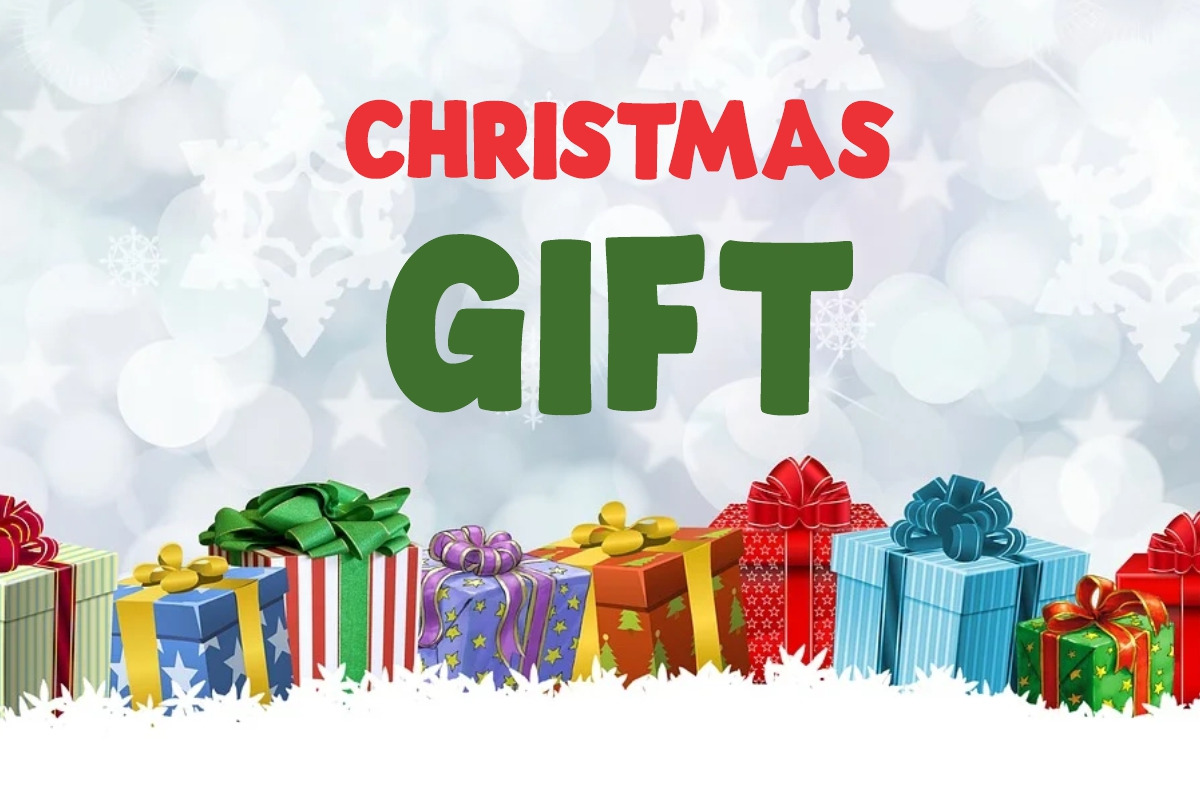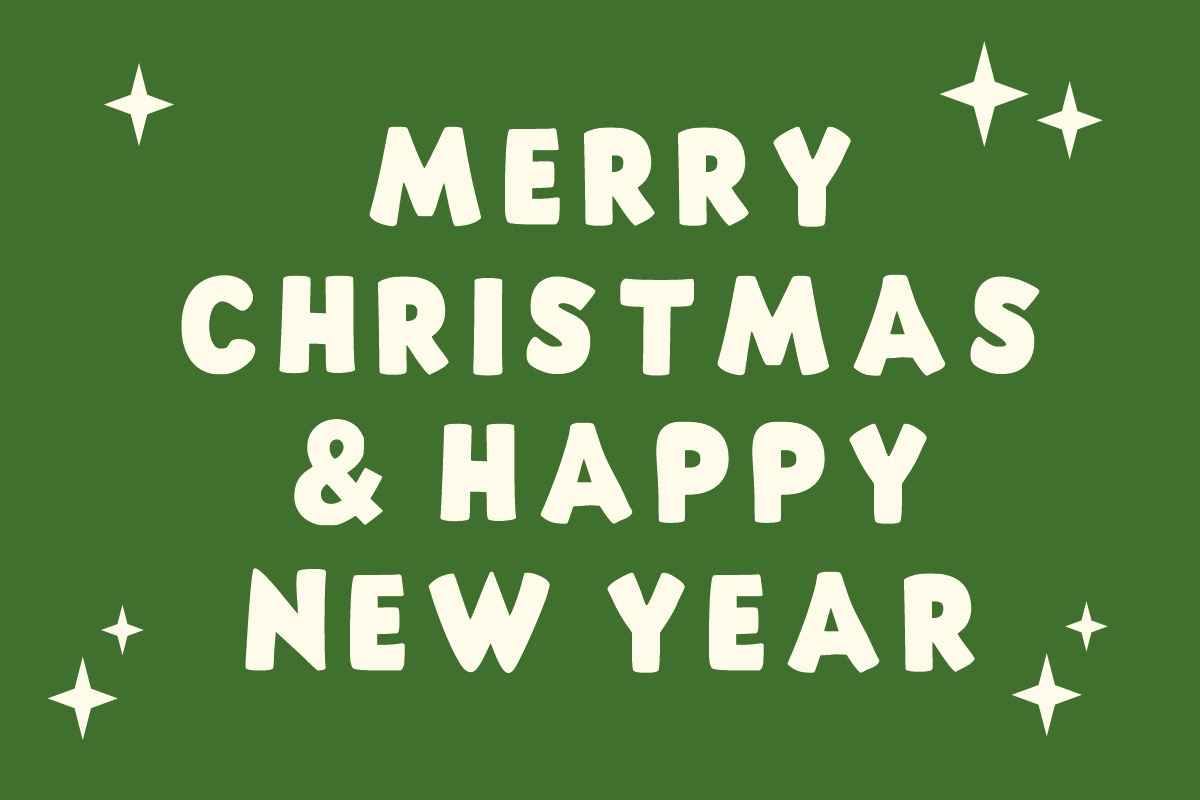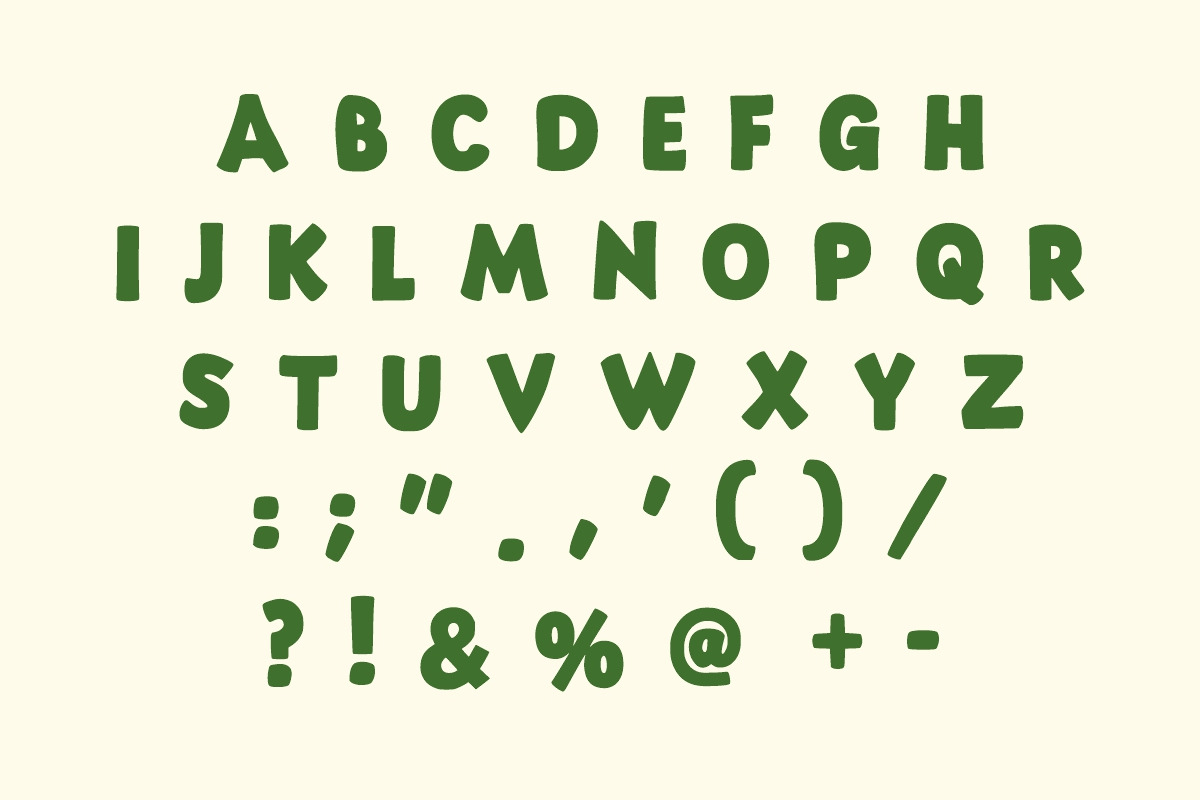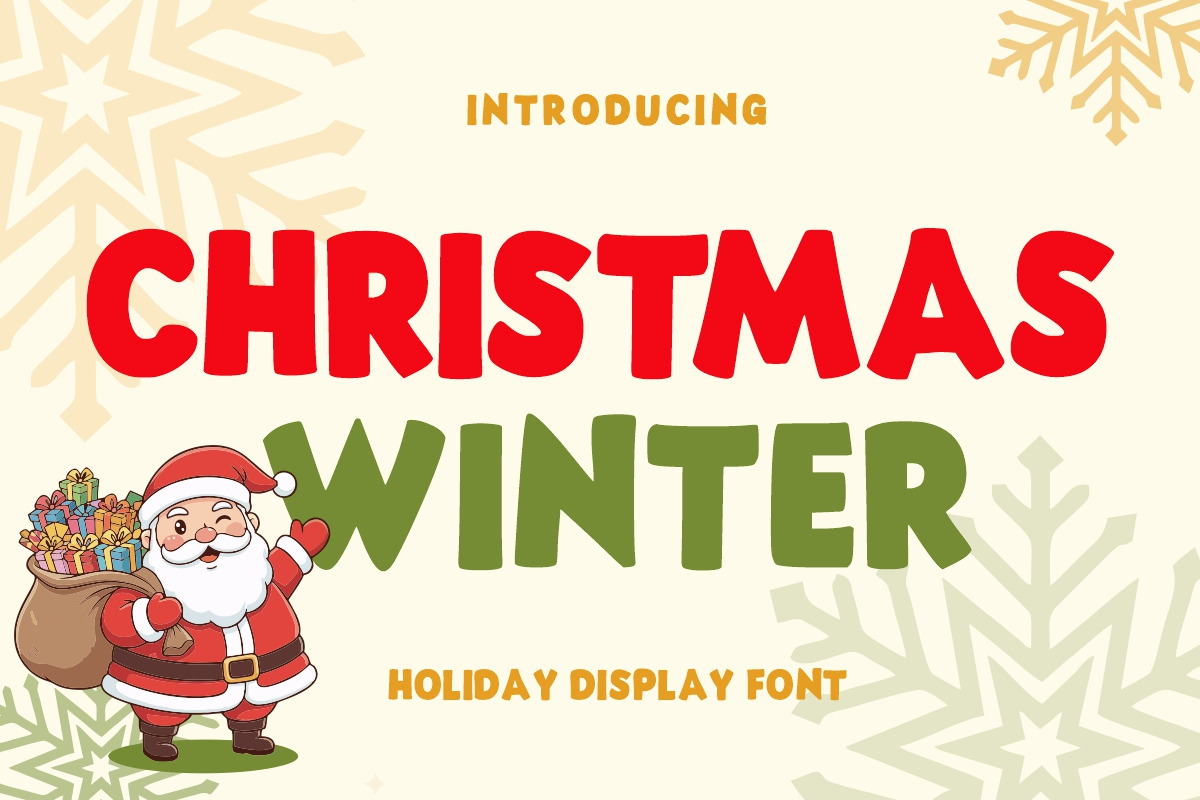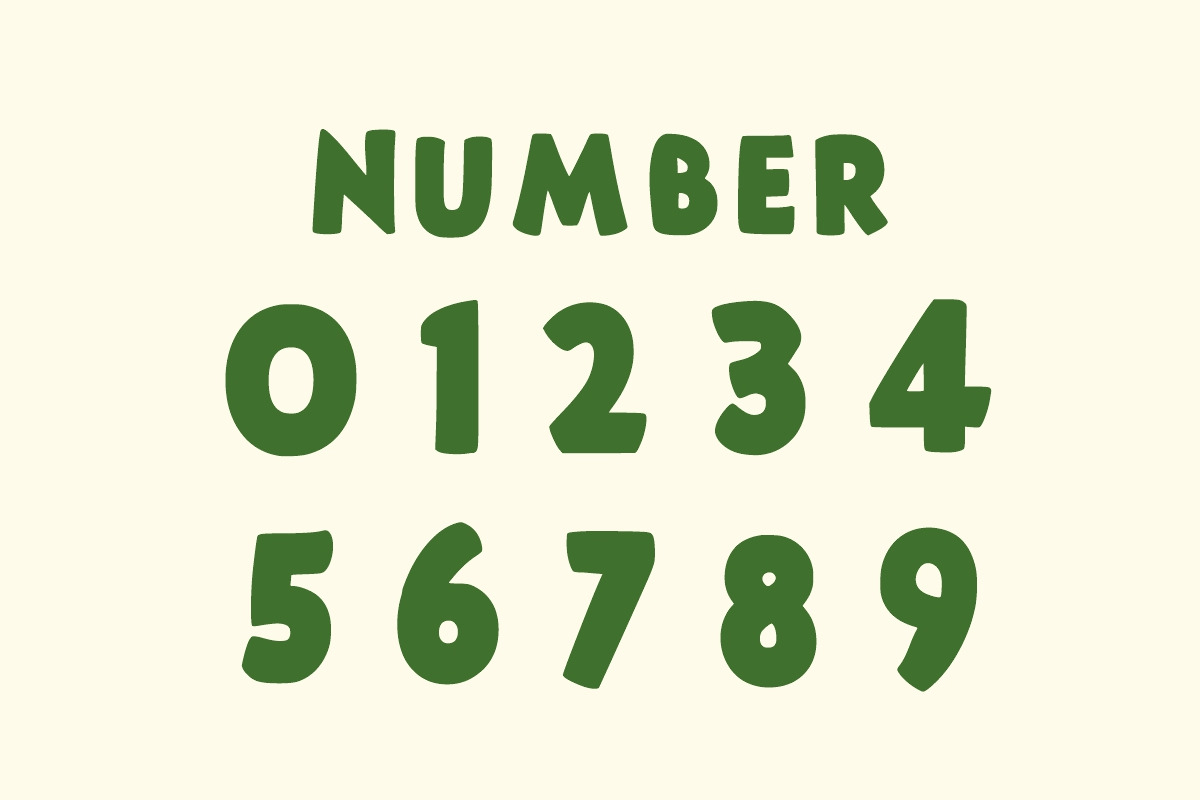
Christmas Winter Font
Christmas Winter font is a wonderfully cheerful and robust holiday display typeface, delivering a friendly, chunky aesthetic perfect for conveying warmth and seasonal simplicity.
This simple, bold, sans-serif font features rounded edges and a heavy weight, making it incredibly clear and readable, even when used on busy backgrounds. Its straightforward, joyful structure makes the Christmas Winter font highly versatile for family-friendly seasonal designs. Utilize this easy-to-use Holiday Display font for creating Santa Claus letters, large-scale store signage for winter sales, simple gift packaging labels, or fun educational materials for children’s holiday activities.